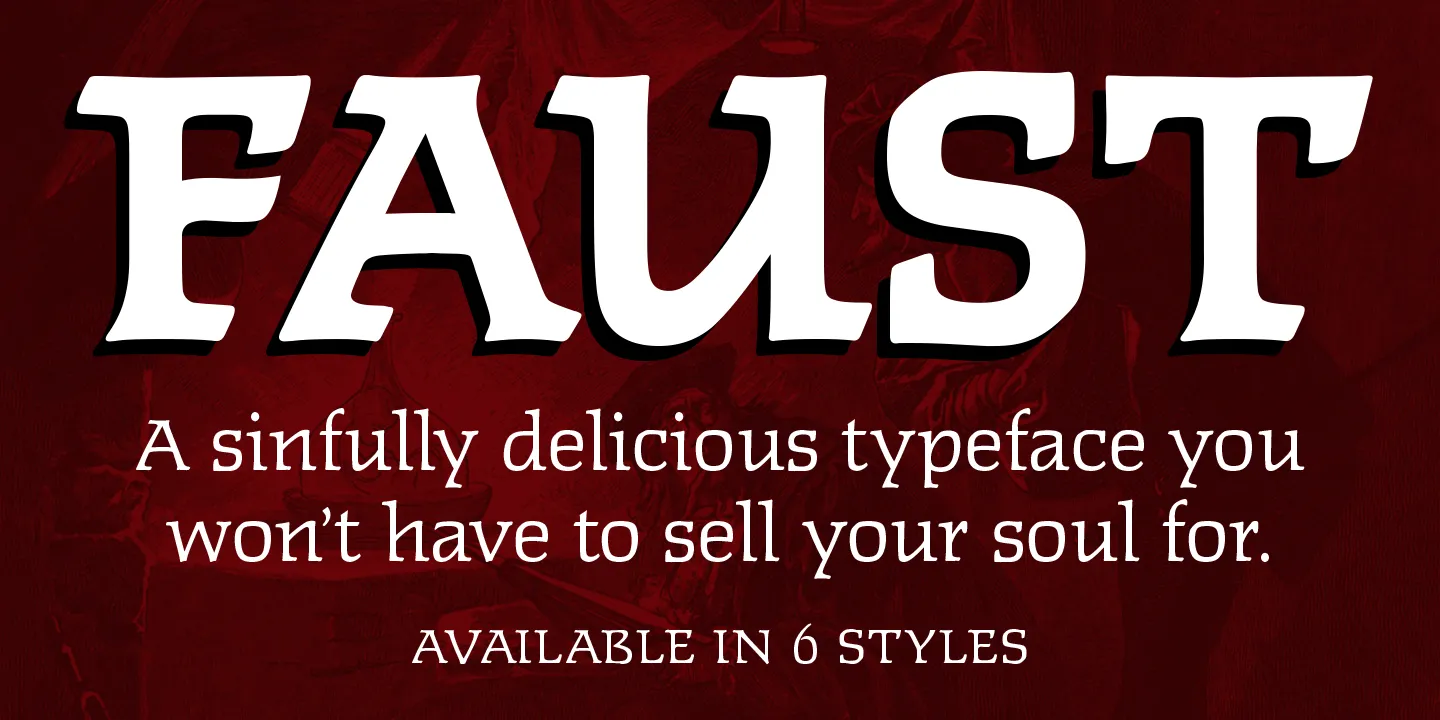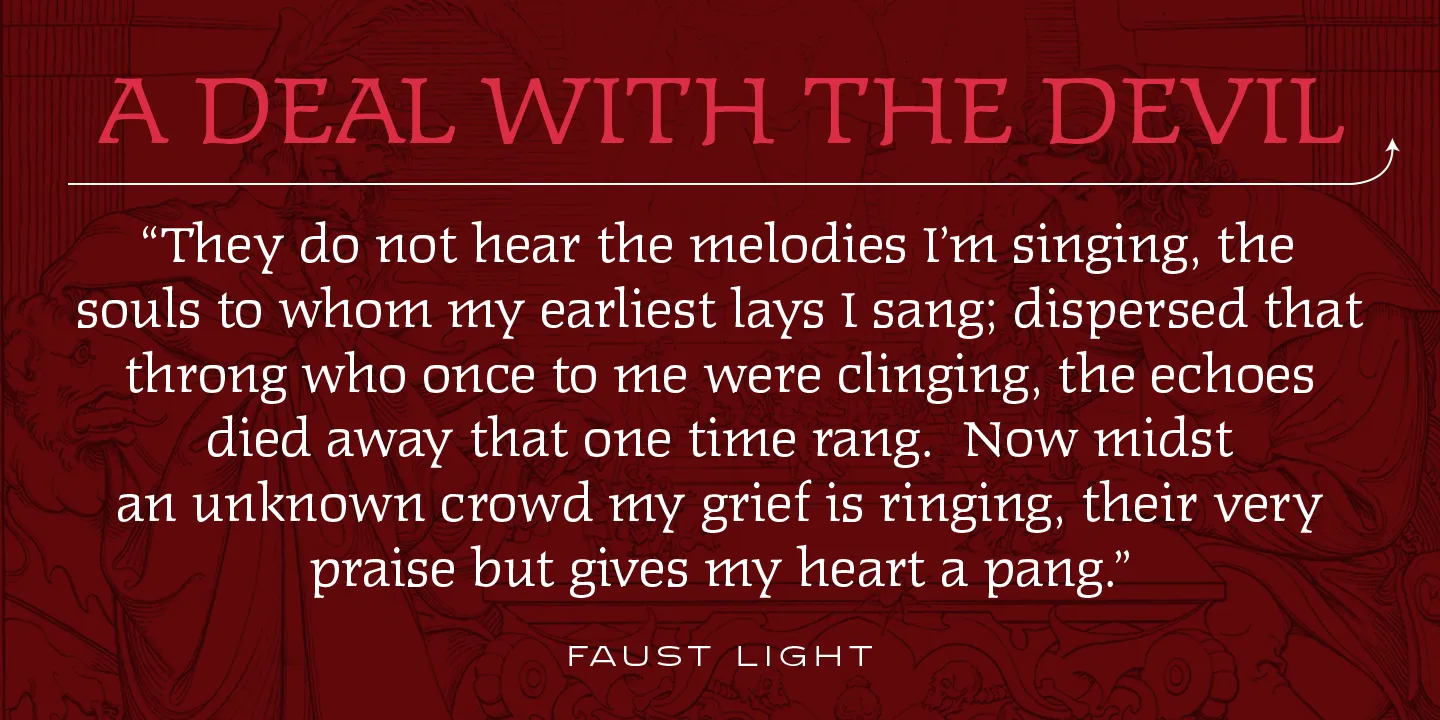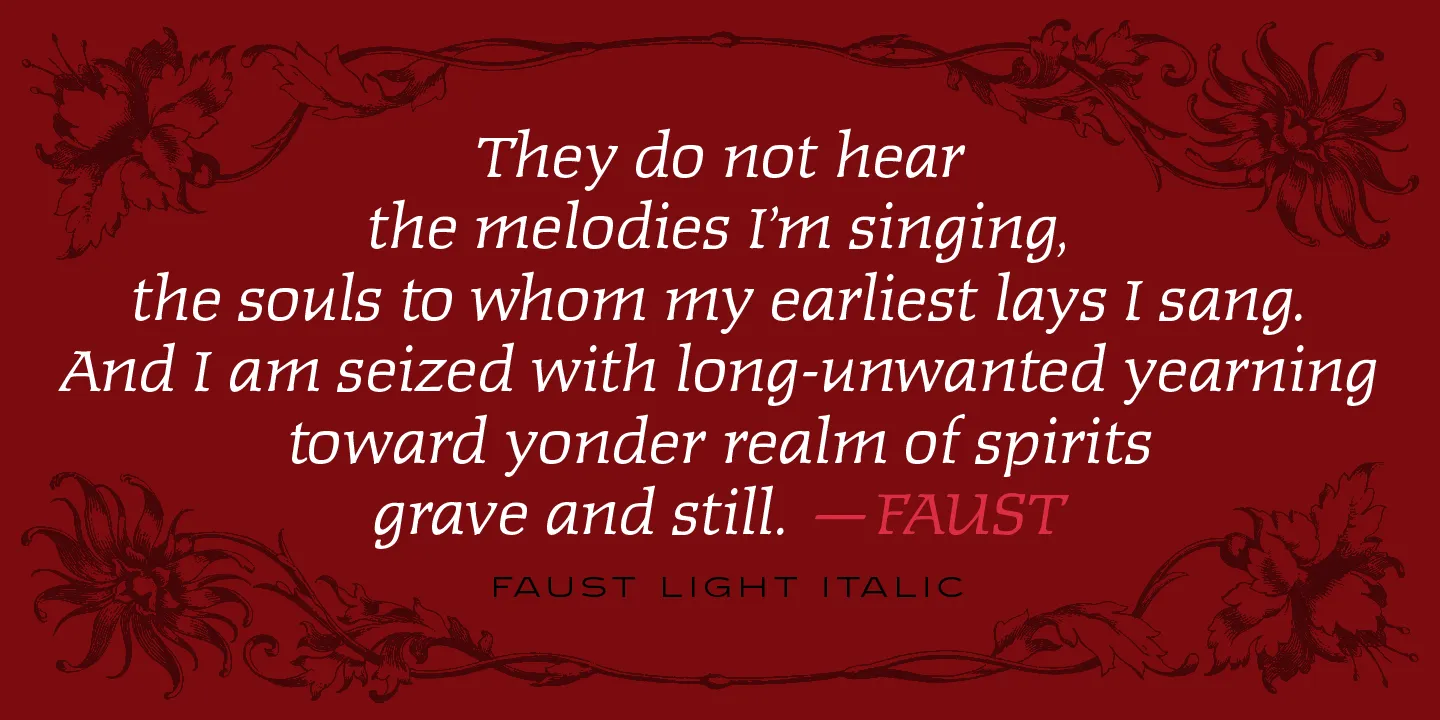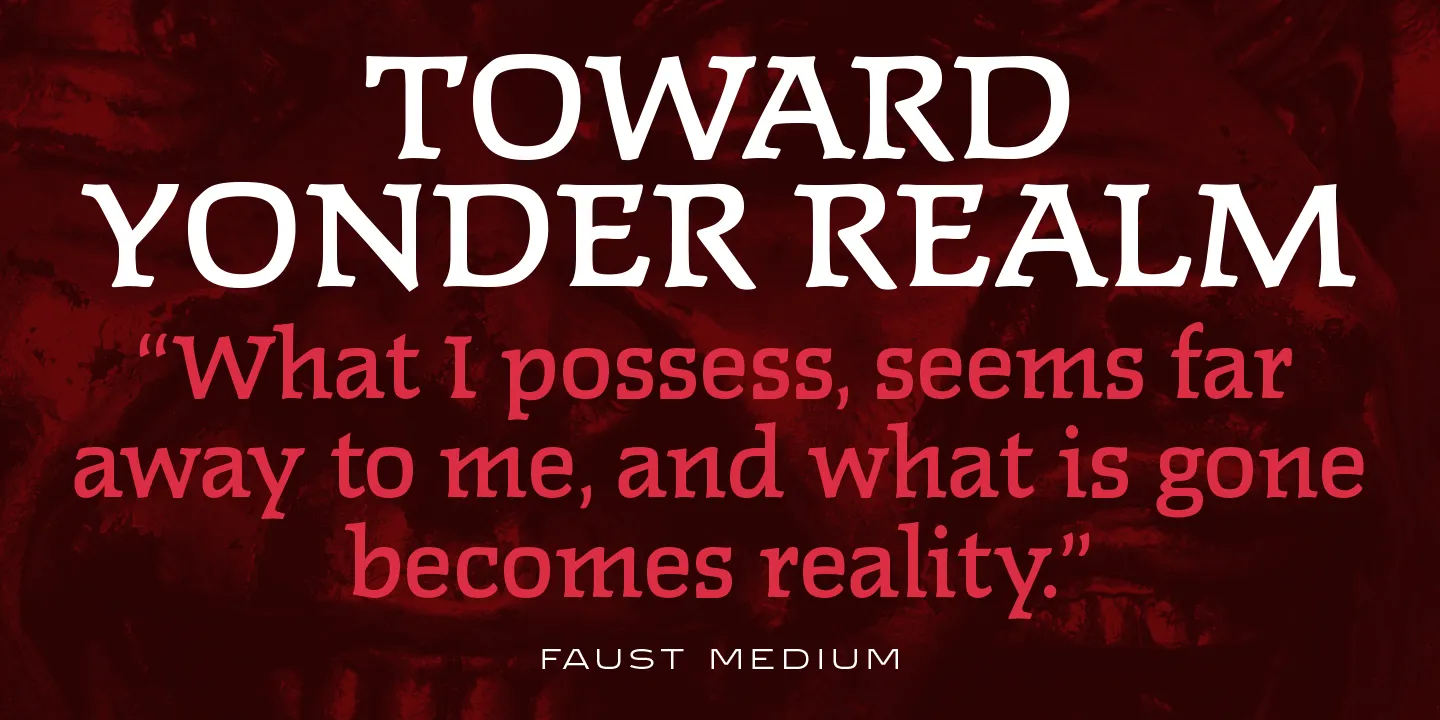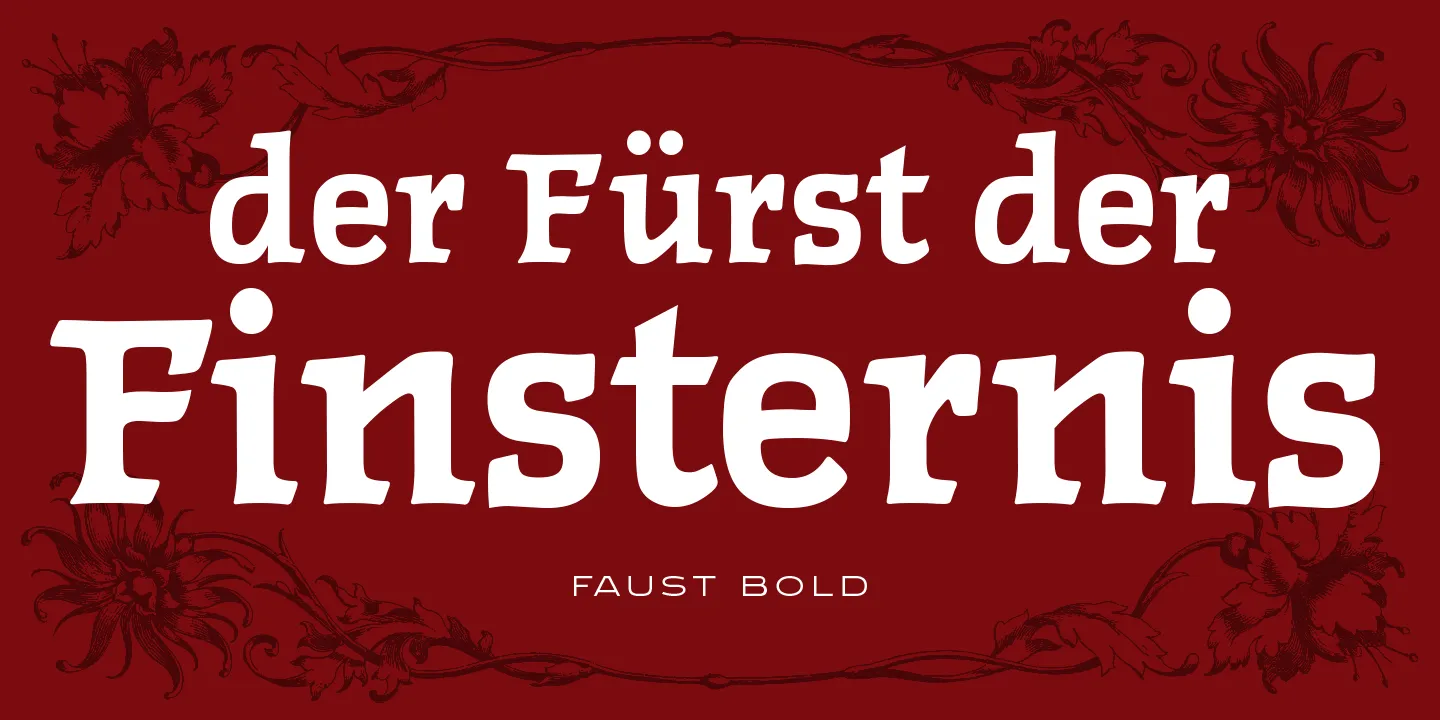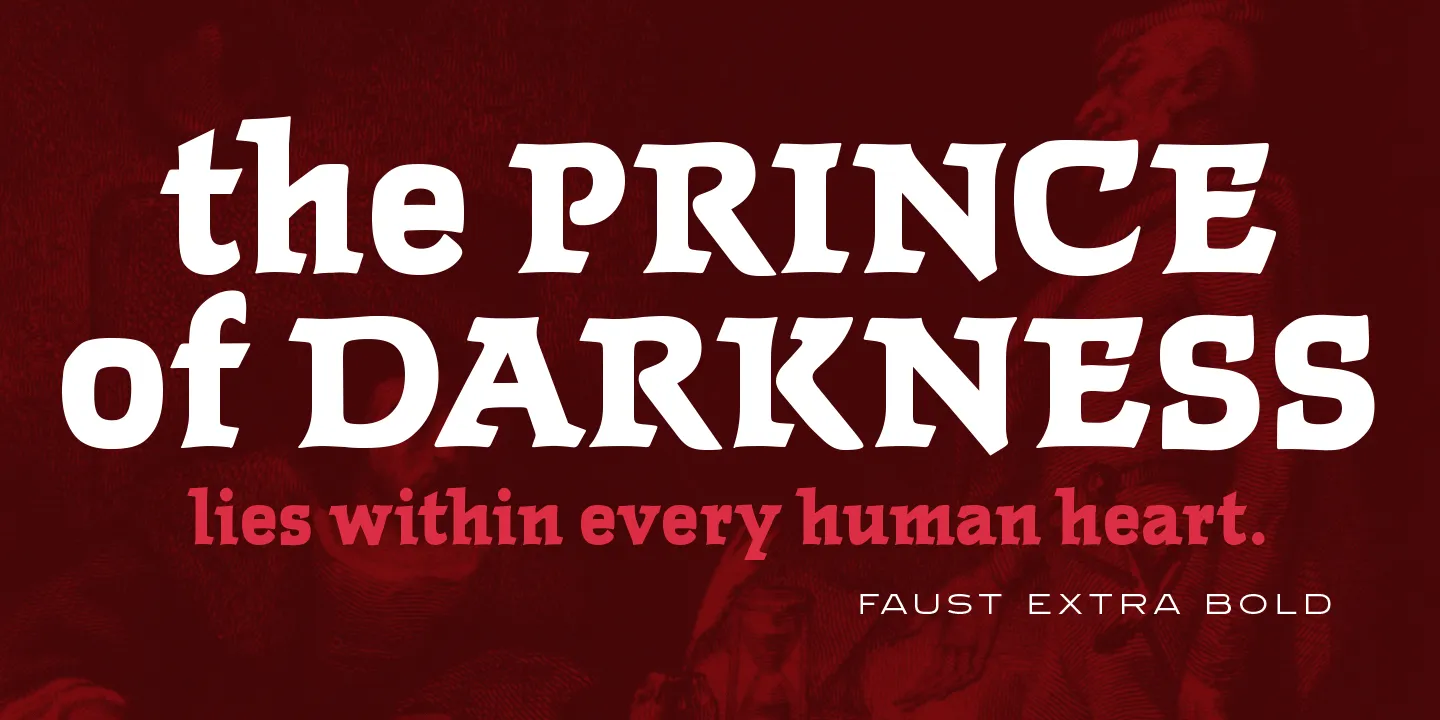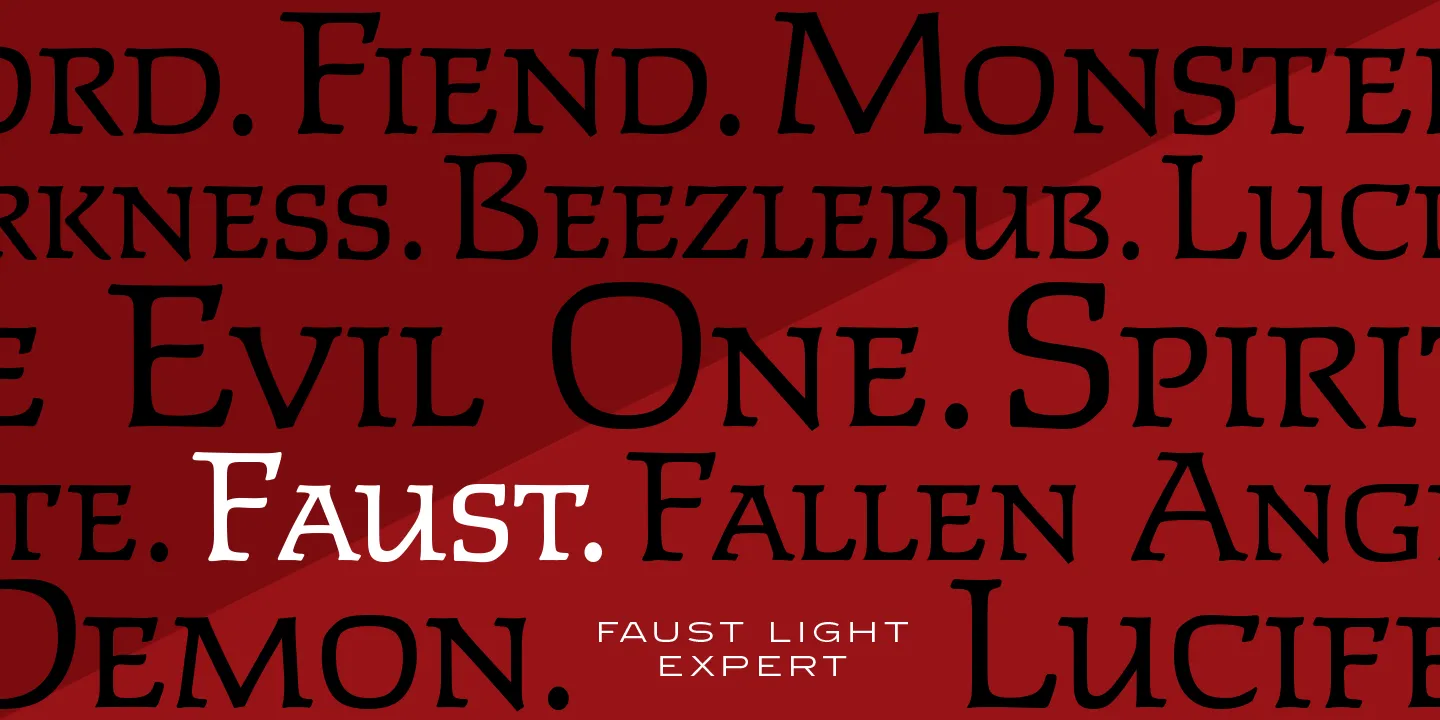
Faust Font Family
Faust is a soft-serif font family created by Steve Jackaman (ITF) in 1993 exclusively for the Red Rooster Collection. It was inspired by “Faust Antiqua,” which was designed by German designer Albert Kapr for Typoart in 1959. “Faust Antiqua’s” original design only included a roman and italic weight; Jackaman built four additional weights to flesh out the family. Faust’s slightly geometric, sloped curves evoke a Victorian or Baroque look. The caps are wide and lower than the ascenders, and there is some squaring up of the round letters.